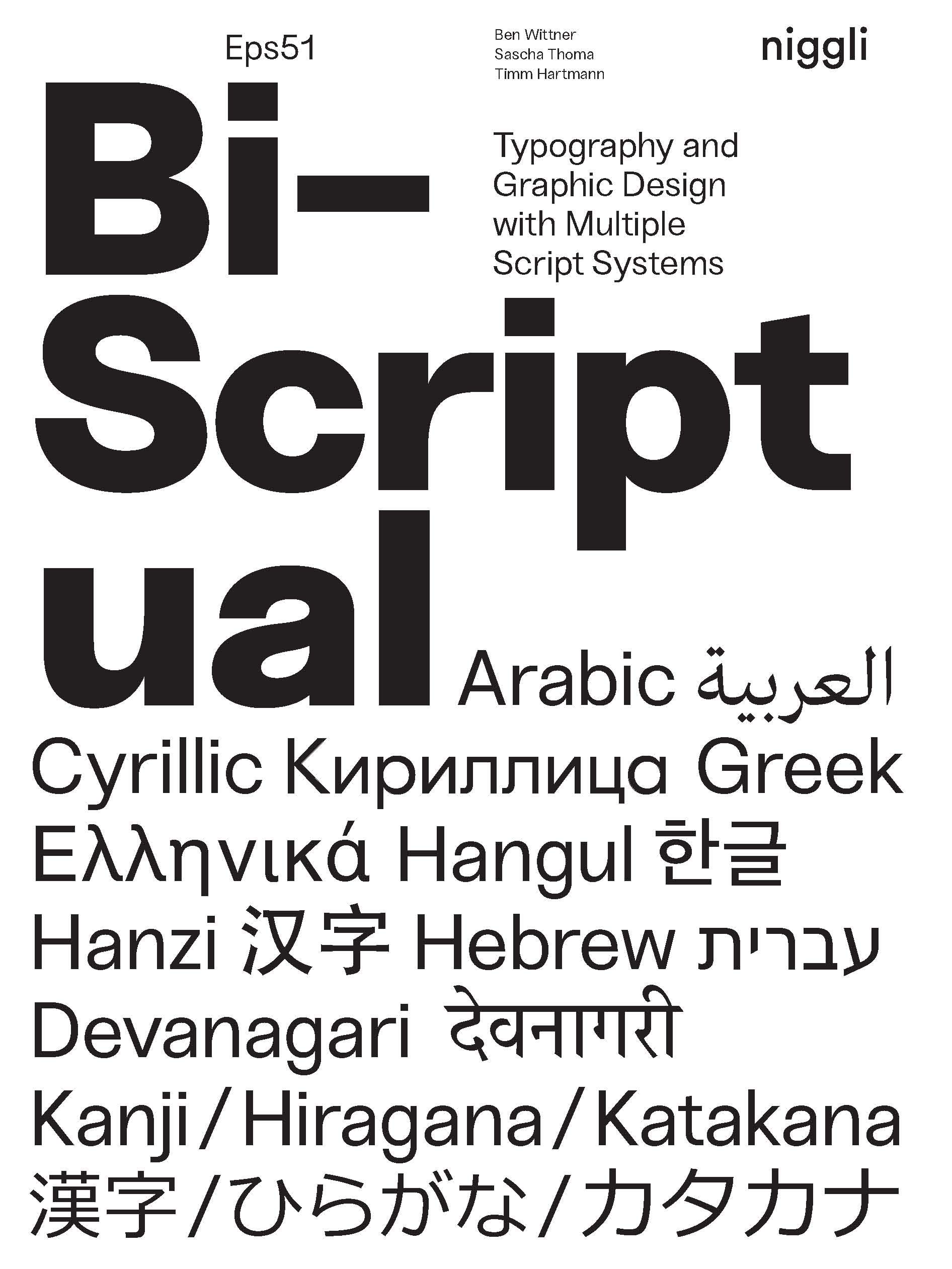
Bi–Scriptual: Typography and Graphic Design with Multiple Script Systems
As a result of globalization and in- creased interaction across countries and cultures, multilingualism is becom- ing increasingly important all around the world. Script, as the most impor- tant conveyor of confirmation, plays a major role in this development. Design- ers are more and more faced with the challenge of creating designs that not only combine various languages but two or even more writing systems.
At first, Bi-Scriptual discusses on a theoretical level questions such as the sociocultural relations between various writing systems and the increasing importance of sociocultural communi- cation. Following a general section on the practical application of bilingual design, experts of the concerned lan- guages compare eight writing systems with the Latin script. This part also contains topical interviews and practi- cal examples of more than 100 design- ers that show the various possibilites of creating designs incorporating different writing systems side by side.